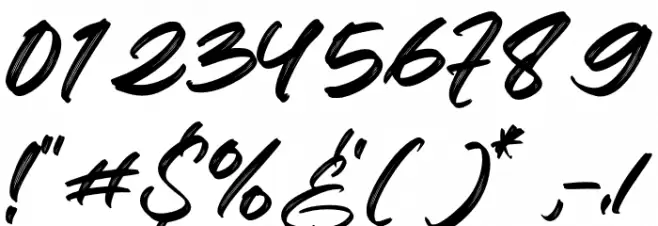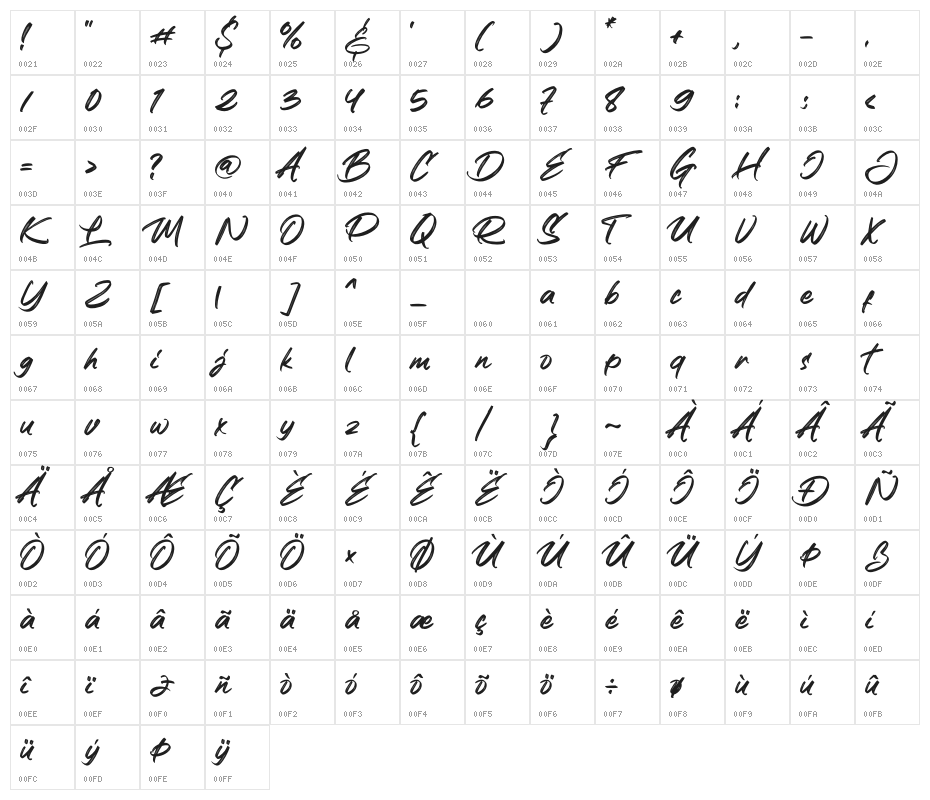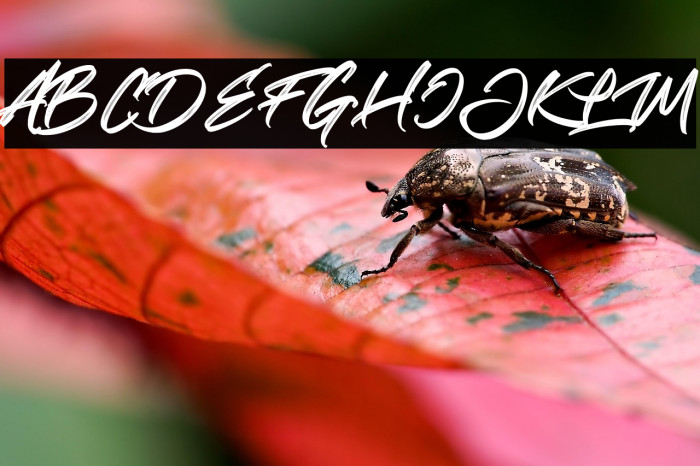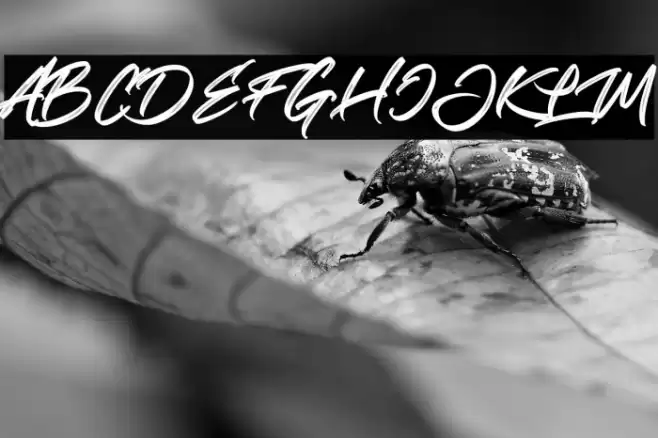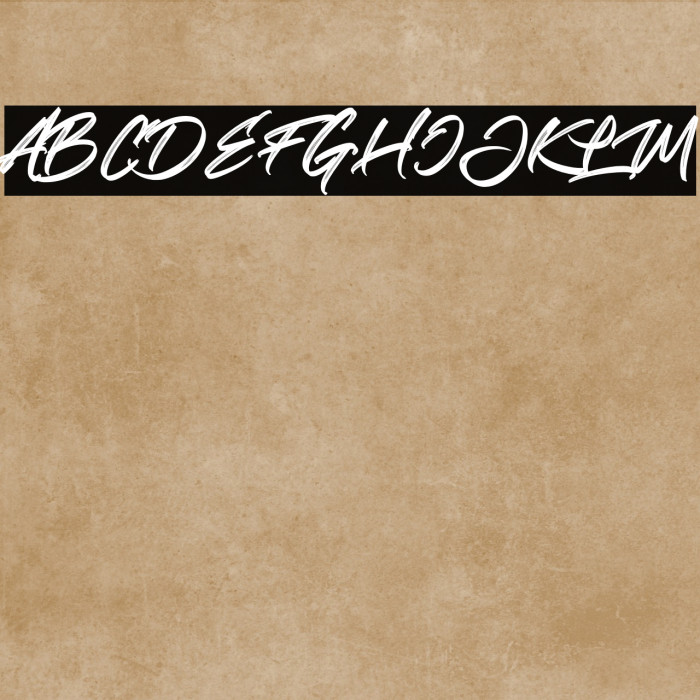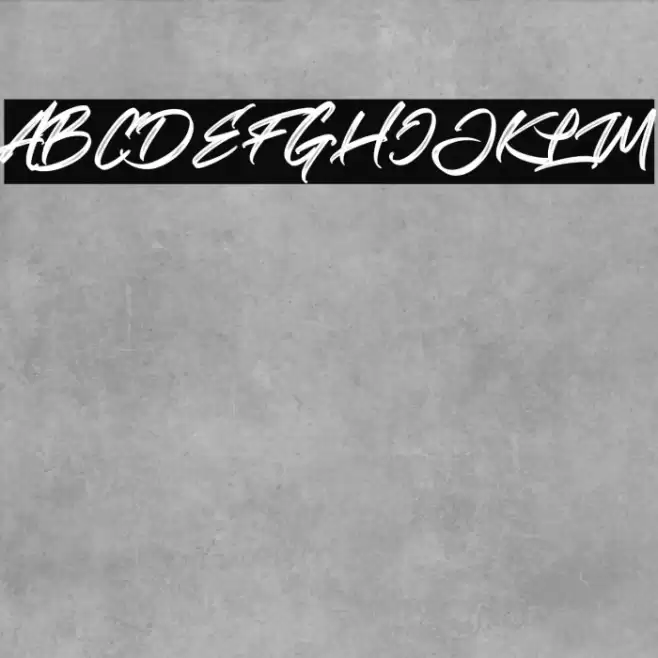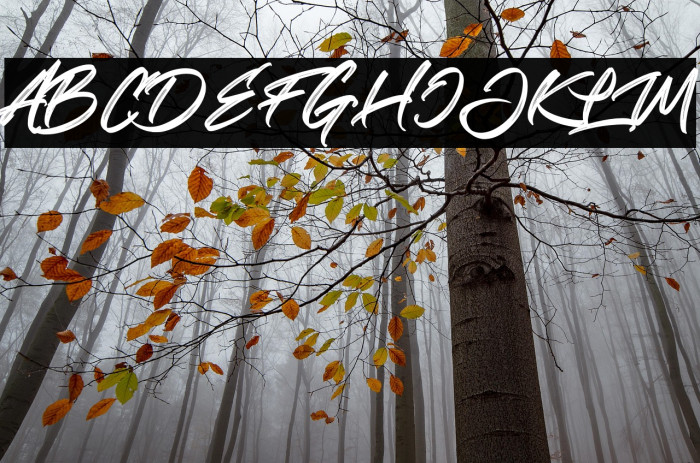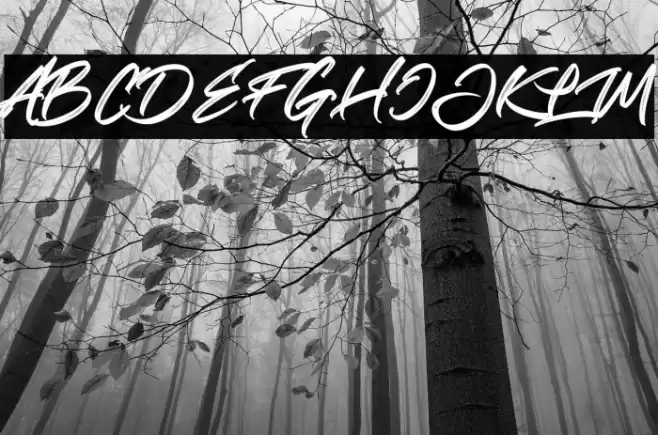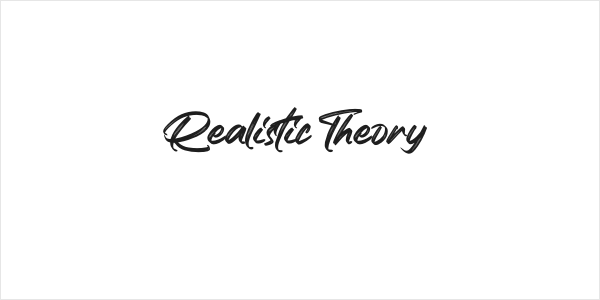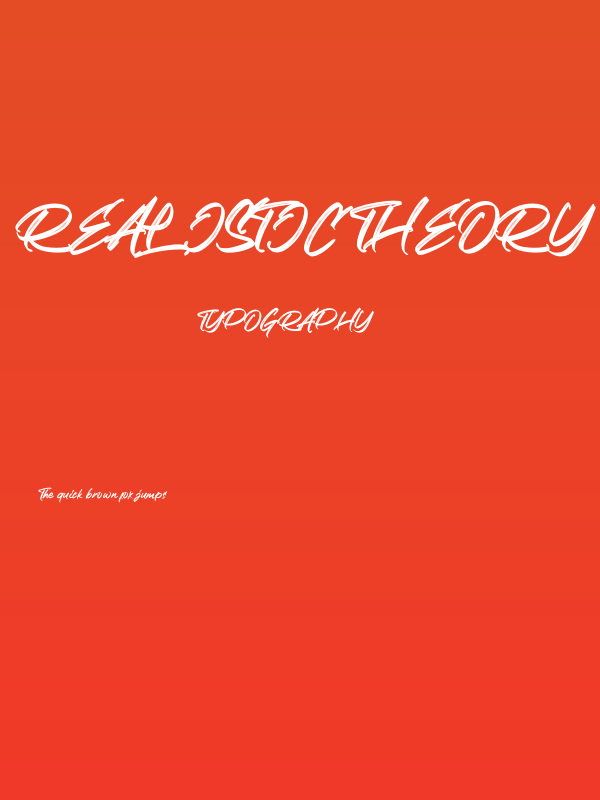
Realistic Theory Font
Realistic Theory Description
This font exhibits a dynamic and expressive handwritten style, characterized by its fluid and energetic strokes. The letters are connected, giving it a cursive appearance, with a noticeable slant that adds to its lively and informal feel. The strokes vary in thickness, creating a medium contrast that enhances its visual interest. The uppercase letters are bold and prominent, while the lowercase letters maintain a consistent flow. Numbers and special characters are crafted with the same energetic flair, making them stand out. This font is ideal for projects that require a personal touch or a sense of movement and creativity.